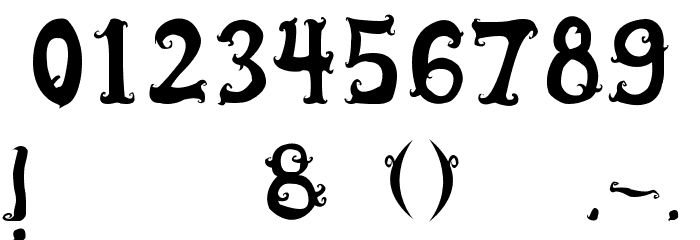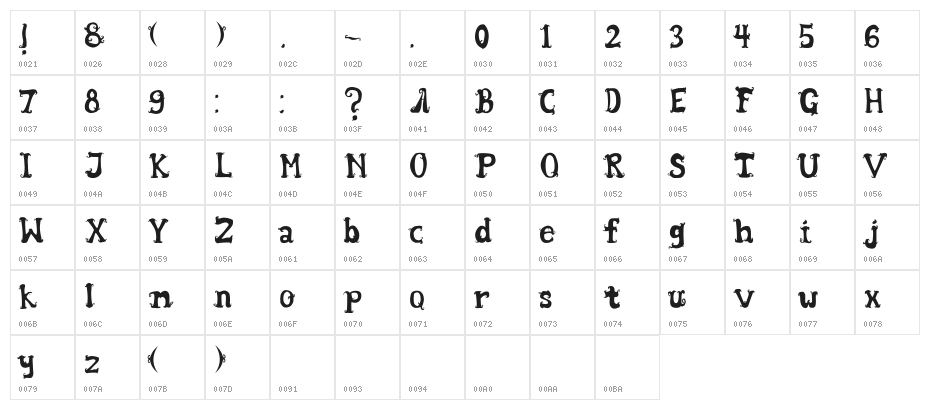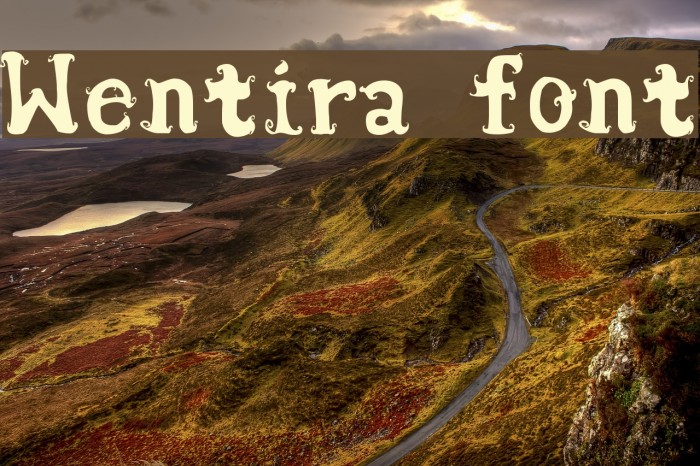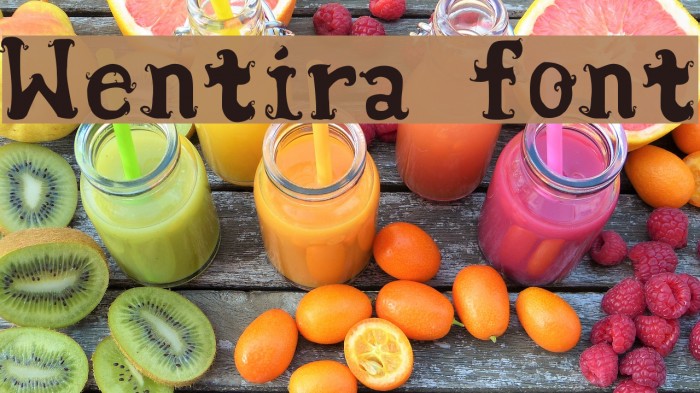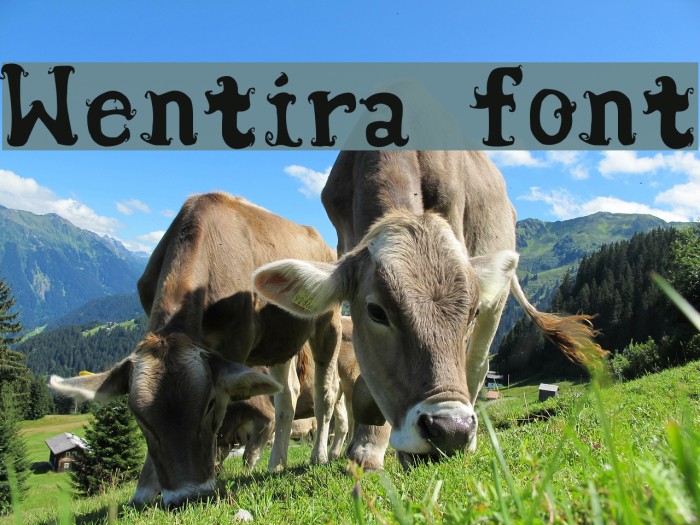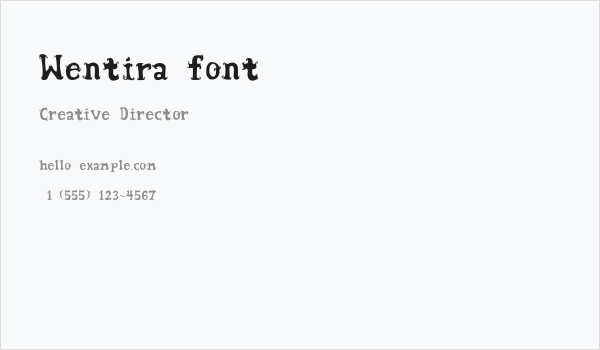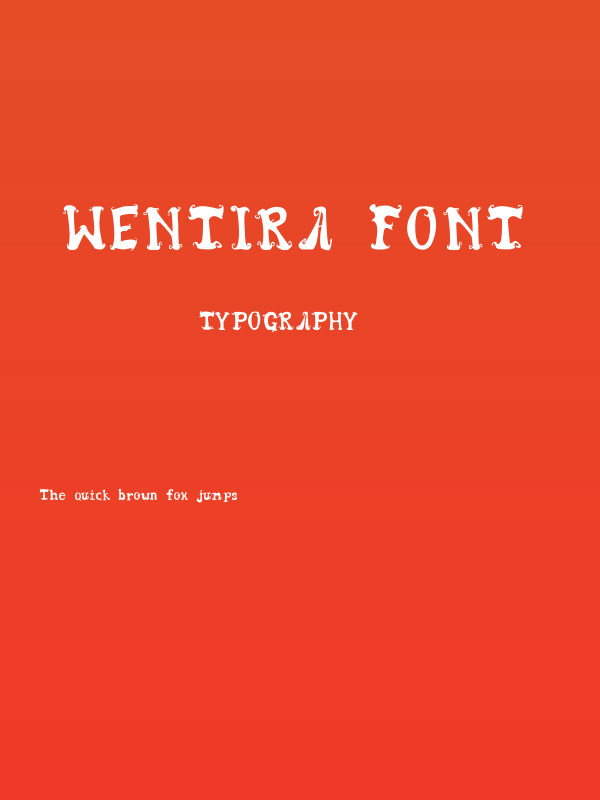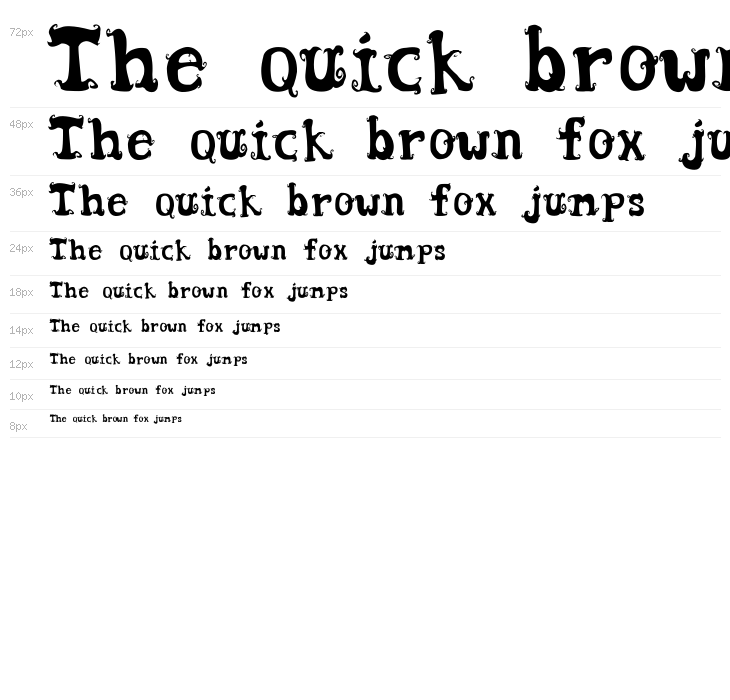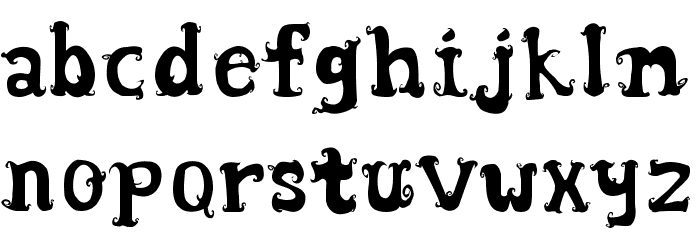
Wentira font Description
This font features a whimsical and decorative style, characterized by its playful and ornate letterforms. Each character is adorned with unique flourishes and curls, giving it a distinct and artistic appearance. The font maintains a consistent weight throughout, with medium contrast between thick and thin strokes. Its elaborate design elements make it stand out, providing a sense of creativity and fantasy. The characters are well-spaced, ensuring readability despite their intricate details. This font is ideal for projects that require a touch of elegance and imagination.